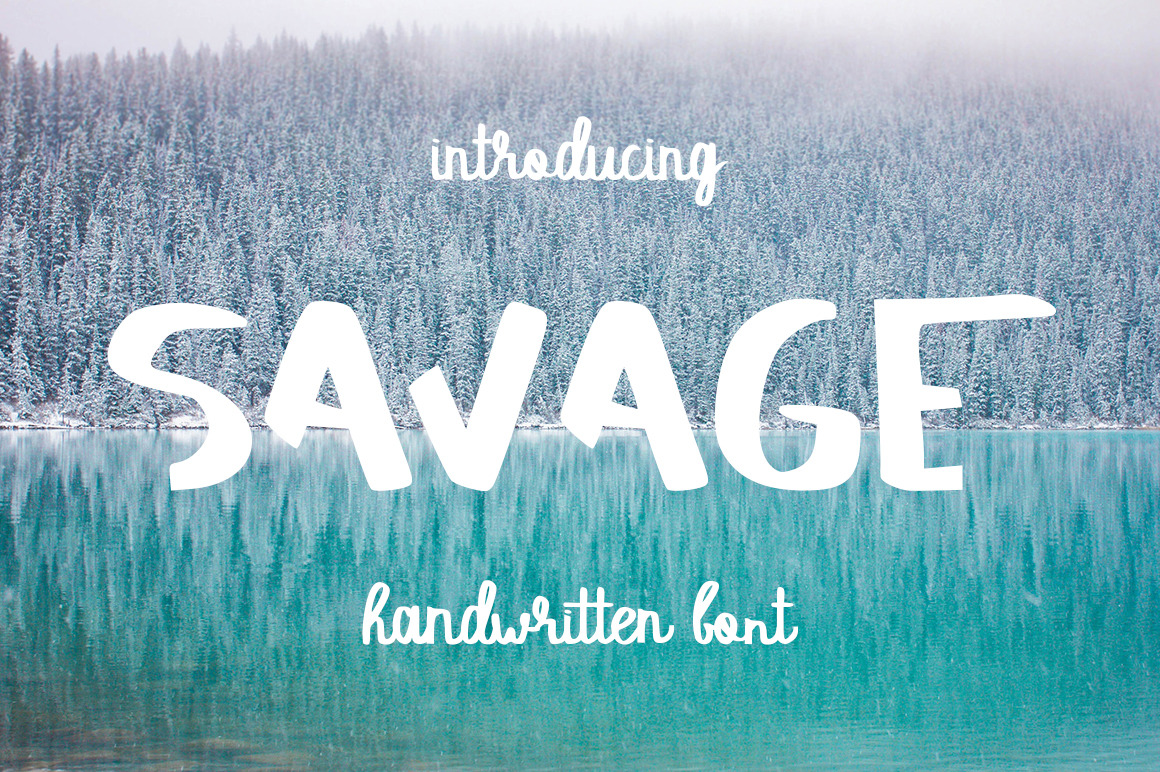
SAVAGE duo script font
I'm super-pleased to introduce you my new font font Duo SAVAGE
SAVAGE is a well-flat handdrawn script font created with flat brush and ink SAVAGE has full set of lowercase alternates (so you can imitate lettering) as well as tons of ligatures.